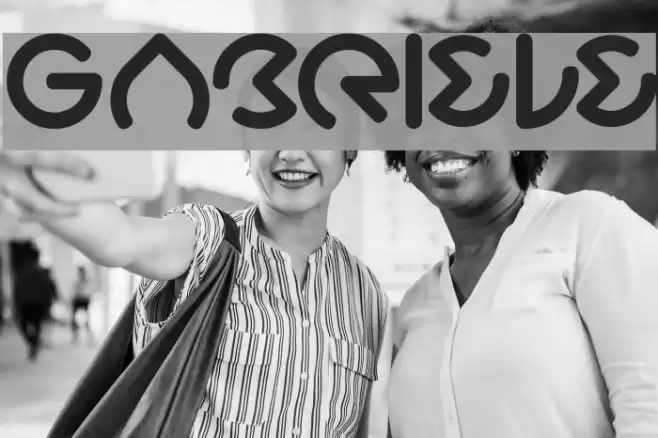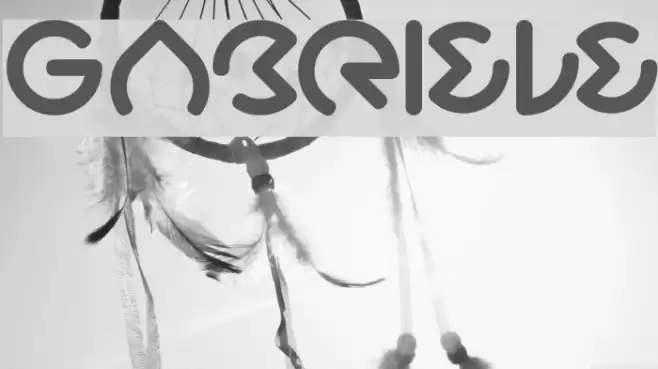
Gabriele Font
Gabriele Description
This font features a unique and futuristic design with rounded edges and a bold presence. The characters are crafted with a consistent thickness, giving them a solid and cohesive appearance. The style is reminiscent of digital or sci-fi themes, with each letterform exhibiting a distinct geometric flair. The uppercase and lowercase letters maintain a uniform style, enhancing readability while adding a modern touch. The numerals and special characters follow the same design principles, ensuring a harmonious look across all glyphs. This font is ideal for projects that require a contemporary and innovative aesthetic.
A futuristic, bold font with rounded edges and geometric design from Uncategorized fonts.
- Proposed Projects: Ideal for sci-fi themed projects, digital interfaces, video game graphics, and modern branding.